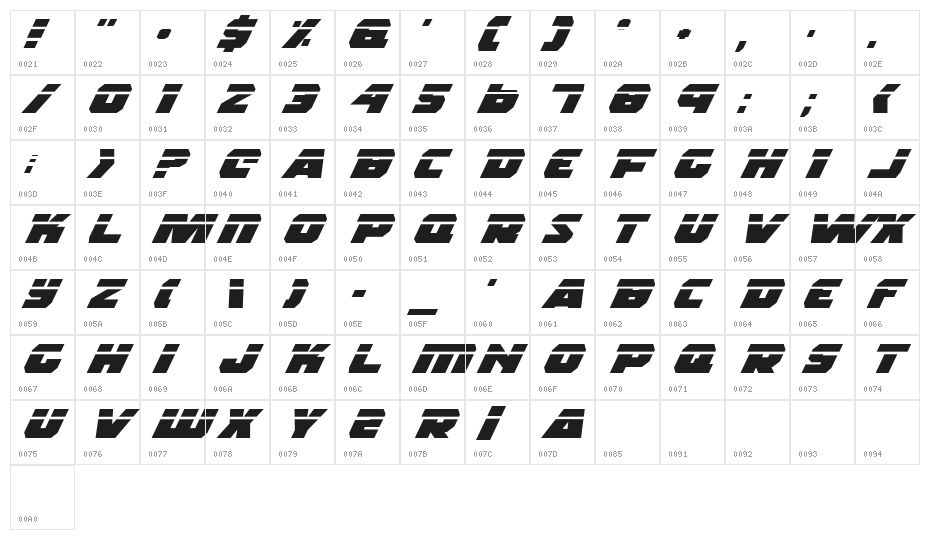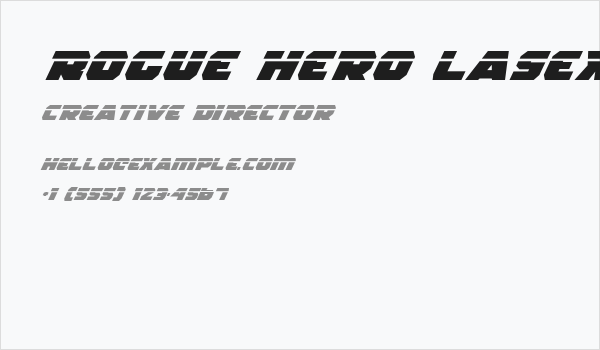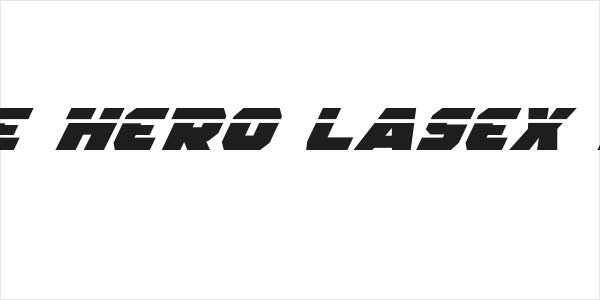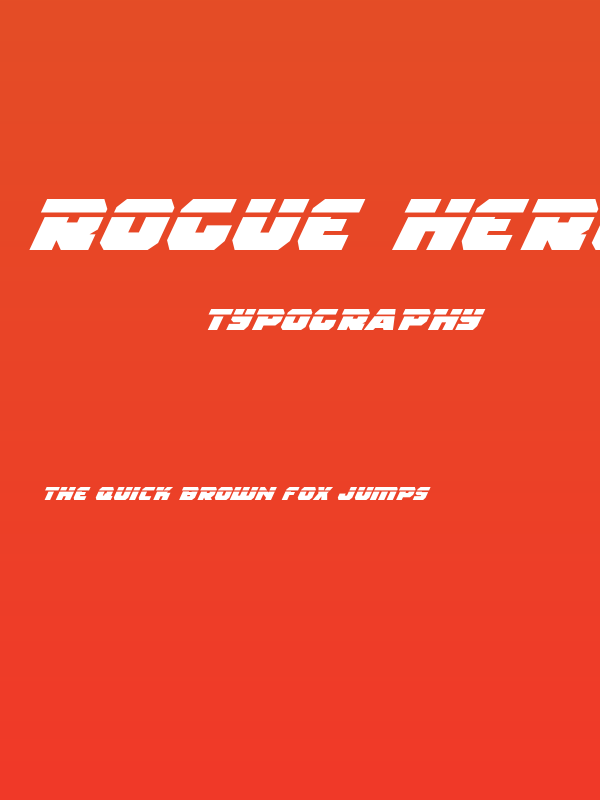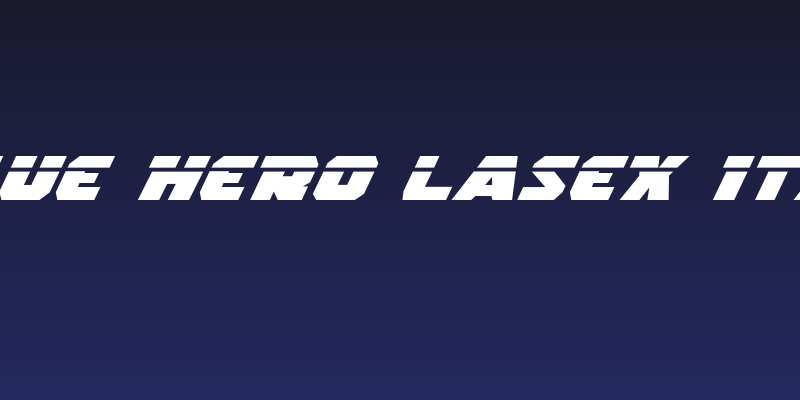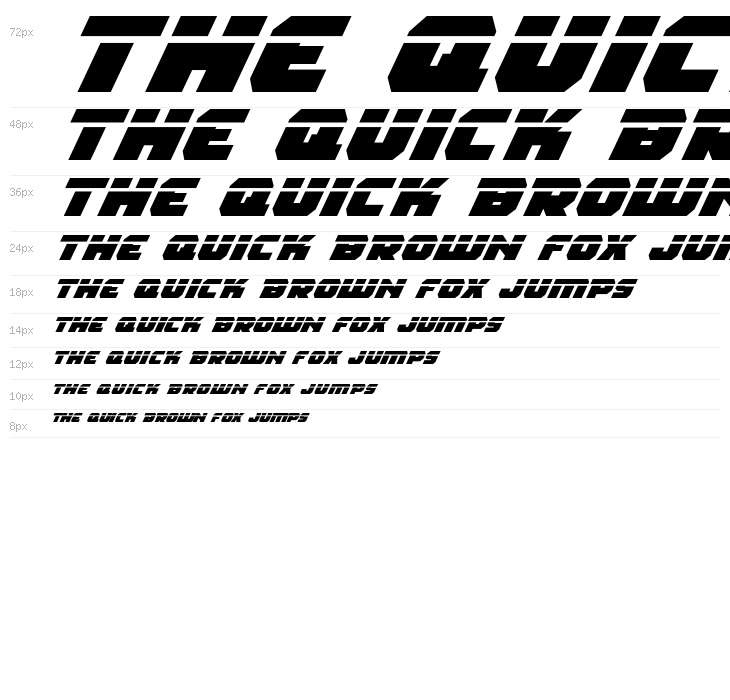
Rogue Hero LasEx Italic Font
Rogue Hero LasEx Italic Description
This font features a bold and dynamic style with a futuristic and angular design. The characters are heavily slanted, giving an italicized appearance that adds a sense of motion and energy. The strokes are thick and consistent, with sharp edges and geometric shapes that create a strong visual impact. The uppercase and lowercase letters maintain a uniform style, while the numerals and special characters are designed to match the overall aesthetic. This font is ideal for projects that require a modern and edgy look, such as technology branding, sports team logos, or video game titles.
| Use Case | Logos, Headlines |
| Proposed Projects | Ideal for technology branding, sports team logos, and video game titles. |